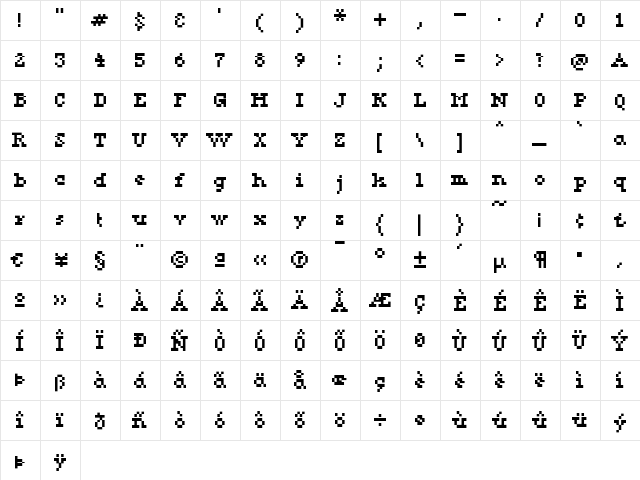
KareSixDotsSerif Regular
Design Context for KareSixDotsSerif Typeface
KareSixDotsSerif is rooted in pixel-grid construction, making it a natural fit for game UI, retro computing aesthetics, and digital nostalgia projects.
Well-suited to indie game interfaces, retro computing aesthetics, and pixel art-adjacent design work.
Pro Tip: Use KareSixDotsSerif at sizes that align with its pixel grid for the sharpest rendering — scaling to non-integer multiples can introduce unwanted blur.